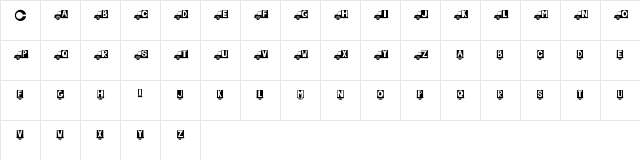
Chlub Regular
Design Context for Chlub
Chlub is a composed and adaptable typeface that performs quietly and consistently across a wide range of design contexts.
Pro Tip: Use Chlub in both headline and body roles to test its range before committing to a single application.